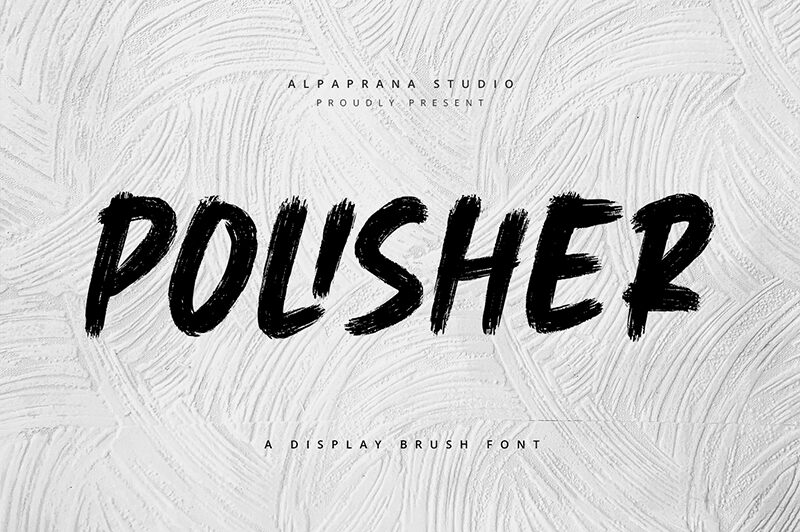
Polisher
Polisher, a captivating brush font crafted by Alpaprana Studio, commands attention with its bold, condensed strokes. This dynamic typeface exudes a raw, organic energy, effortlessly blending rugged elegance and modern charm. Polisher's distinctive character-defining features, such as its fluid lines and striking contrasts, create a visually compelling aesthetic that evokes a sense of movement and personality.
Polisher's versatility shines through, making it a versatile choice for a wide range of design applications. From attention-grabbing headlines and impactful logos to bold branding and expressive packaging designs, this font's strong presence and distinctive personality can elevate any project with its captivating visual impact.